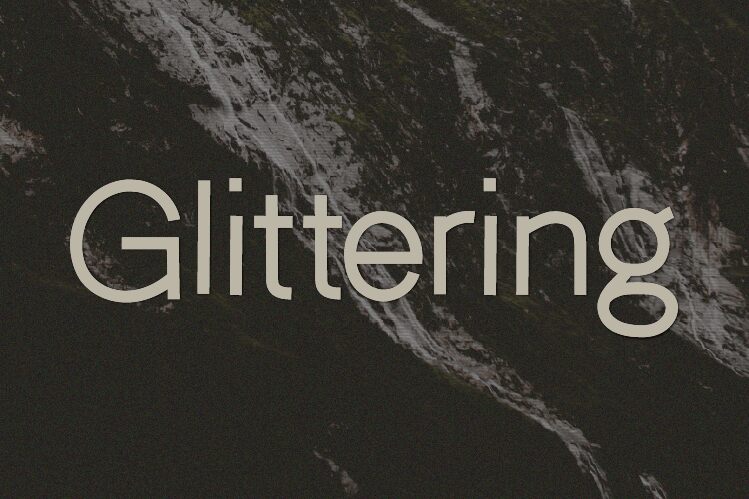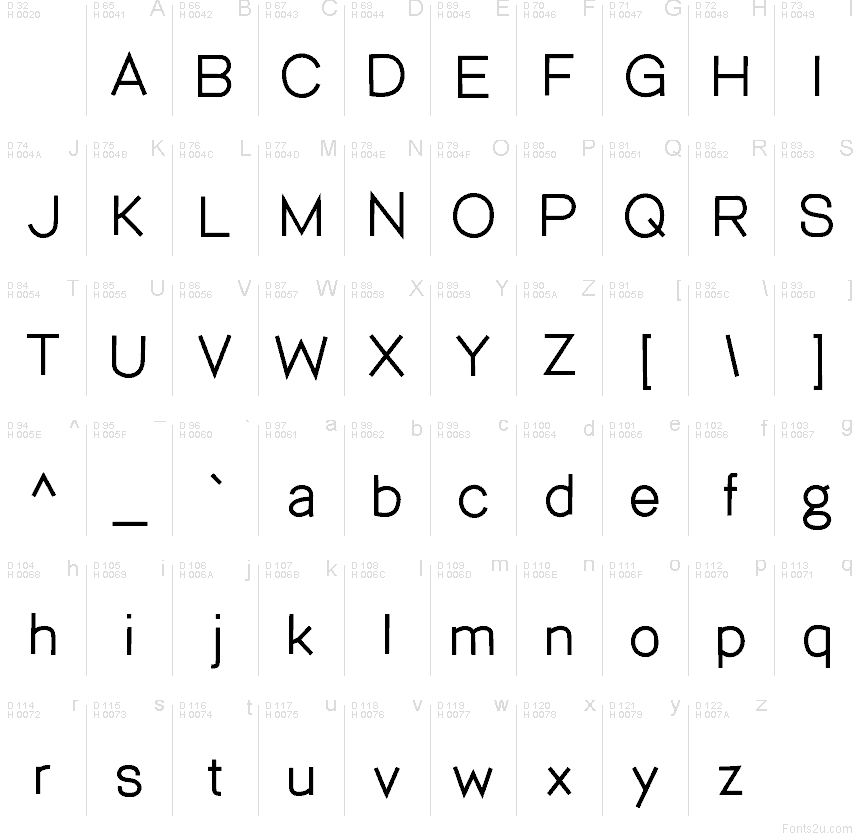
Glittering
Glittering font by HannaBie Creative Studio is a free modern sans serif display typeface. Its personality lives in those ultra-clean, almost architectural strokes paired with the oversized, looping curves that give it a bold, sculptural finish. Thin verticals, generous counters, and that striking rounded “g” create a sleek rhythm that feels both editorial and futuristic, like glossy ink laid down in one confident pass.
Using Glittering, this free font shines on fashion branding, magazine covers, sleek logos, album art, bold posters, and high-impact social media graphics. The tight structure and crisp edges hold up beautifully at large sizes, where every curve can really breathe. For a simple pairing tip, match Glittering with a light, neutral sans serif for body text to let its dramatic forms stay in the spotlight.